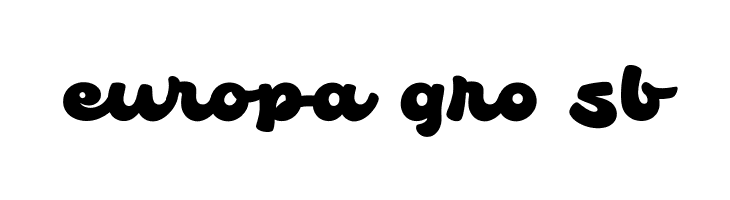
A bold, flowing script font with smooth, connected letters and a friendly appearance.
A flowing, elegant script font with a handwritten charm.
An elegant monoline script font with fluid, connected characters.